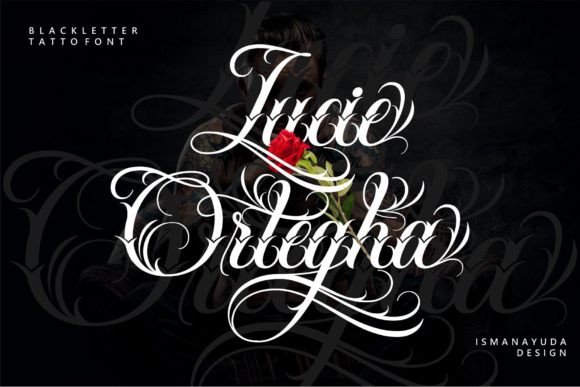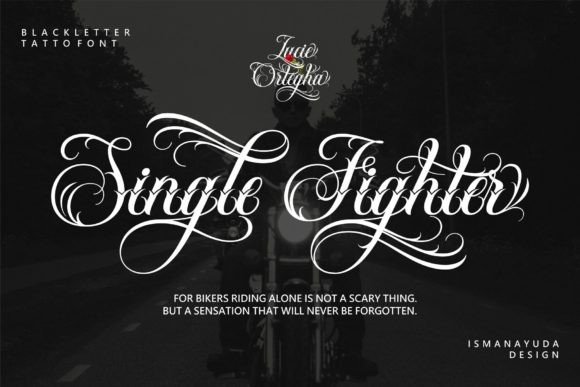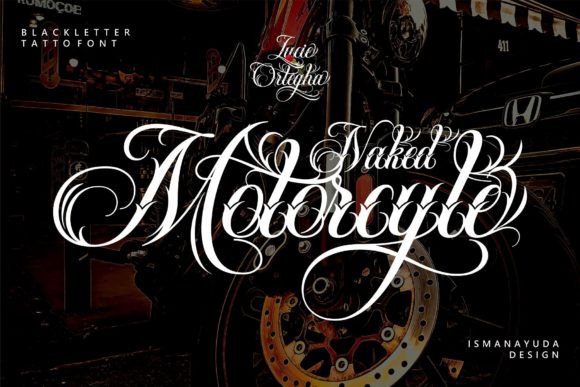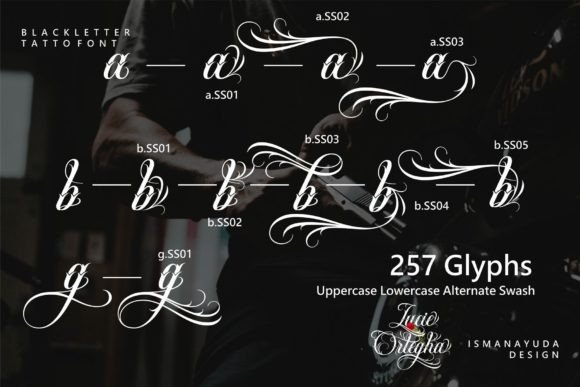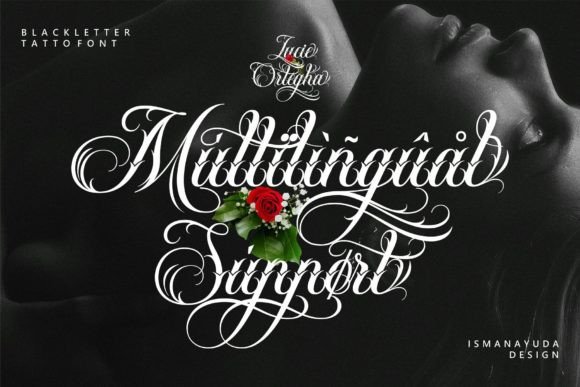
Lucie Ortegha is a font blending script-style handwriting with a distinctive blackletter twist, making it ideal for tattoos, displays, mockups, and logos for renowned bands. Its unique style adds flair to any project, infusing it with character and personality.
Lucie Ortegha Font